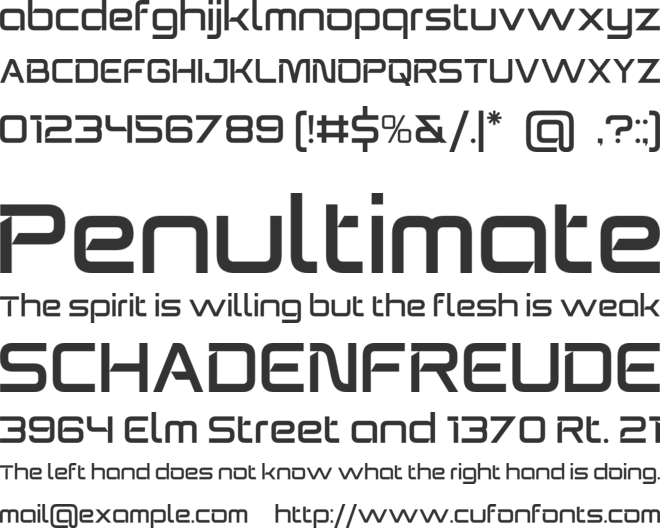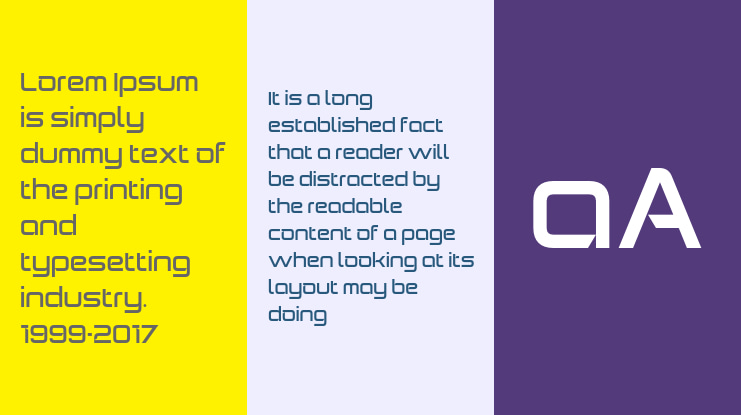
Spotfix Font
Spotfix is a modern sport display font built for speed, strength, and sharp visual impact. This typeface delivers a bold, futuristic look that instantly grabs attention. Designed with clean geometric forms and dynamic cuts, Spotfix feels fast, confident, and powerful.